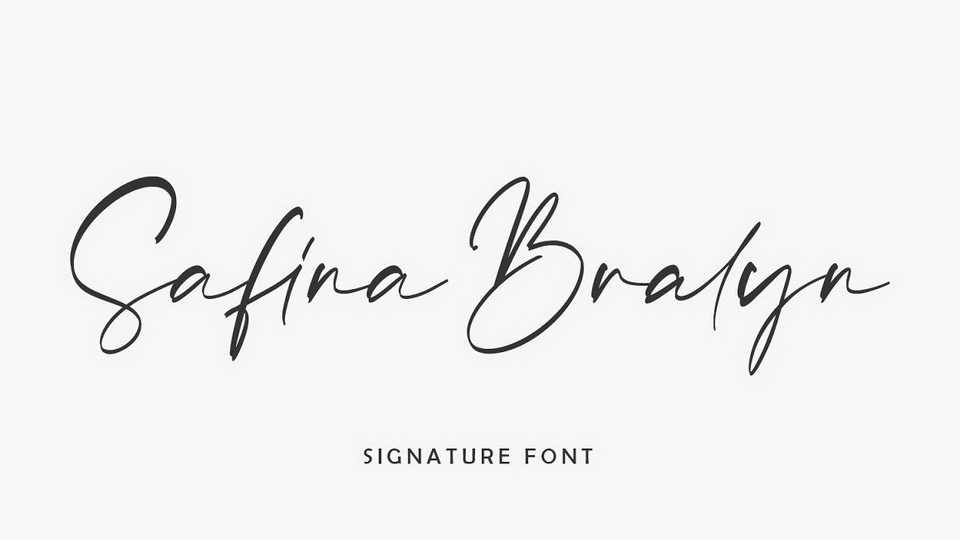
Download Safina Bralyn font, a stylish handwritten signature scriptt which is very elegant and modern for you to use and your design interests be it for logos, branding names, posters, podcasts and so on.
Designer: Arendx Studio